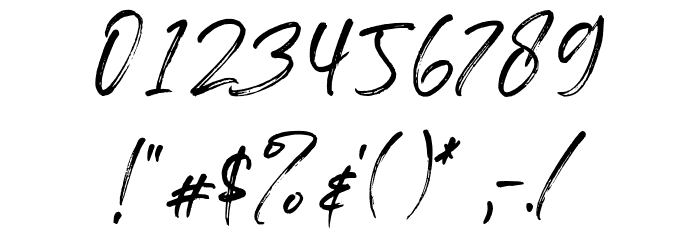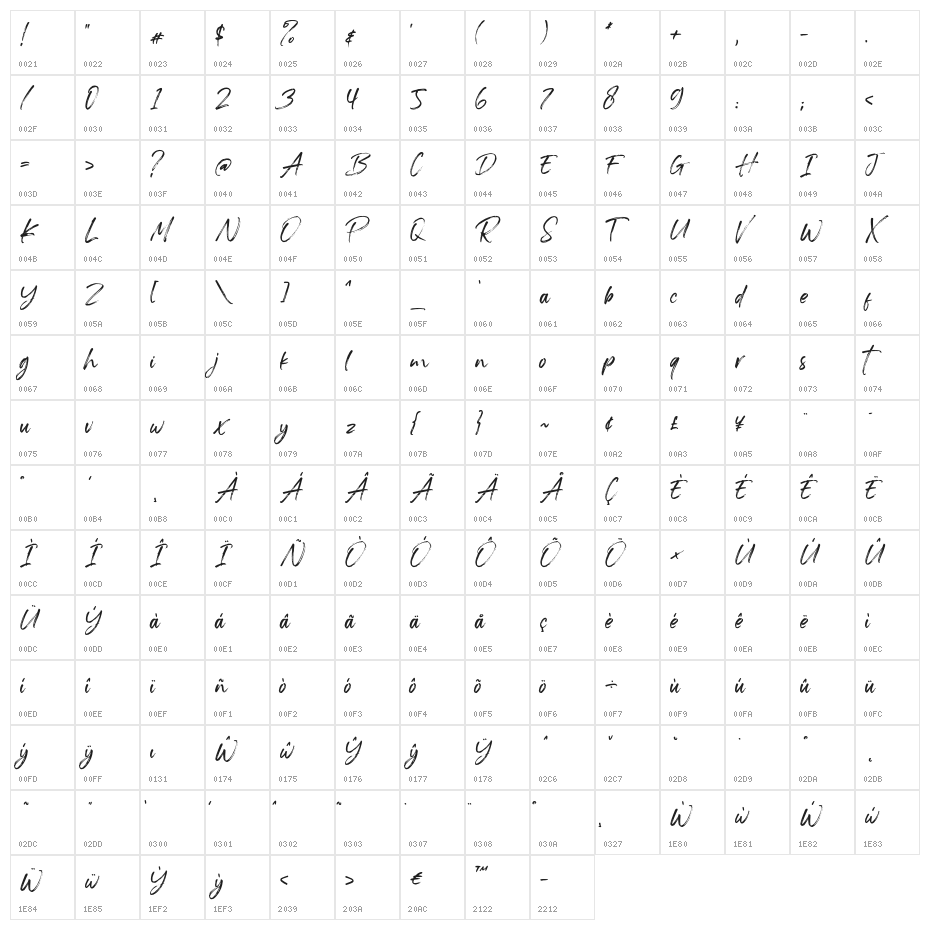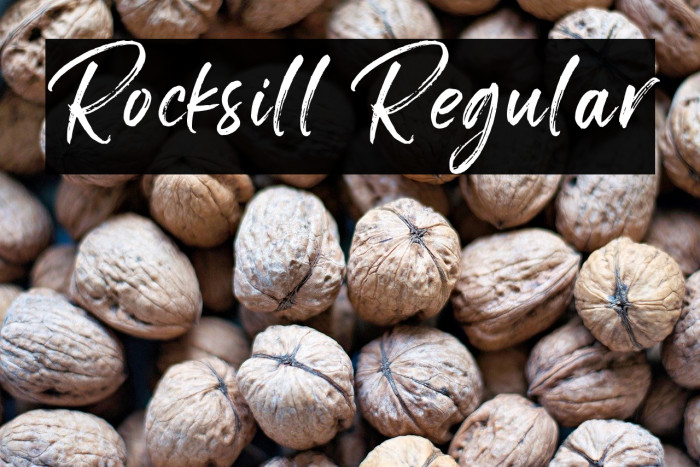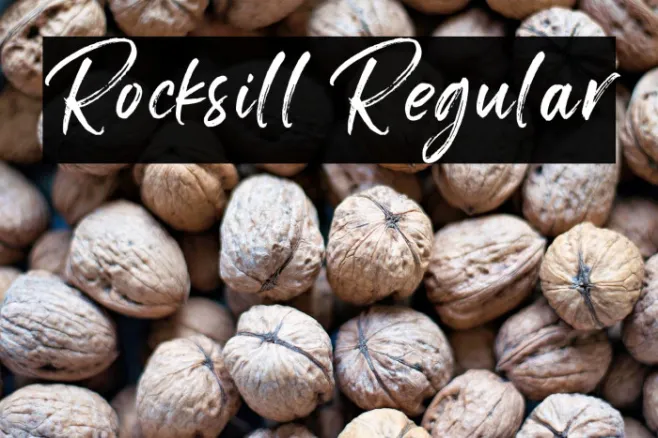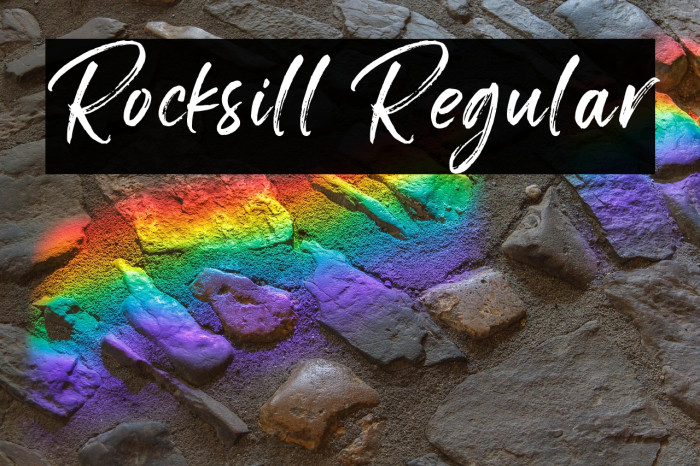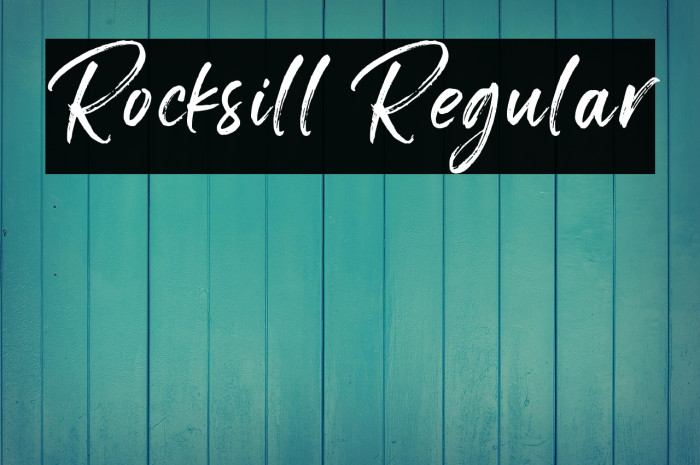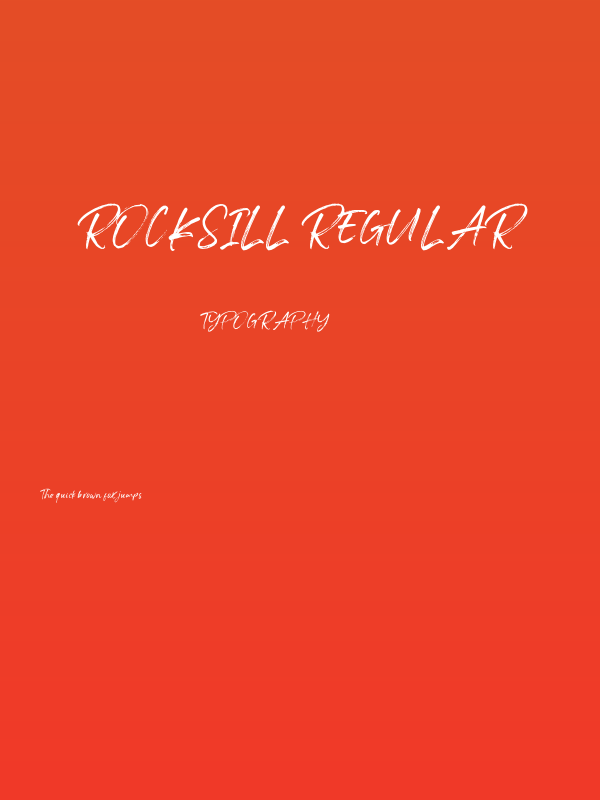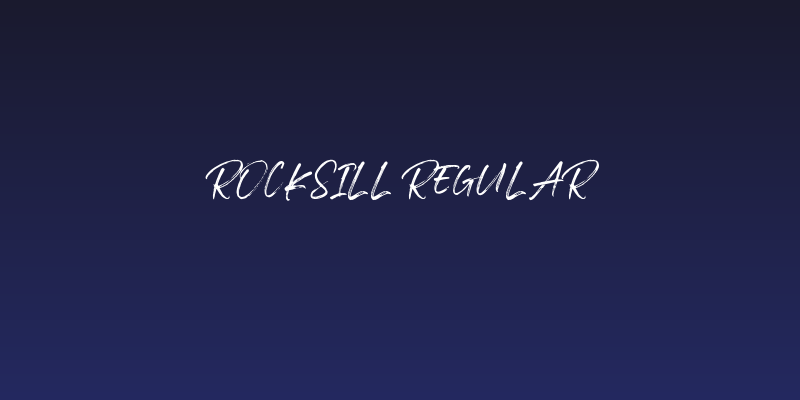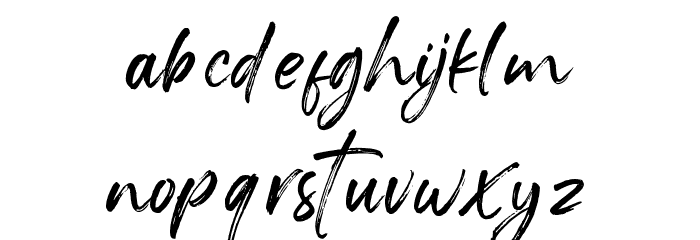
Rocksill Regular Font
Rocksill Regular Description
This font features a dynamic and expressive handwritten style, characterized by its fluid strokes and natural flow. The letters exhibit a slightly rough texture, giving them a rustic and artistic appearance. The uppercase letters are bold and prominent, while the lowercase letters maintain a consistent rhythm and balance. The numerals are clear and legible, matching the overall aesthetic of the font. Special characters are creatively integrated, maintaining the font's unique style. This font is ideal for projects that require a personal and creative touch, such as invitations, posters, and branding materials.
| Proposed Projects | Ideal for invitations, posters, branding, and creative projects requiring a personal touch. |